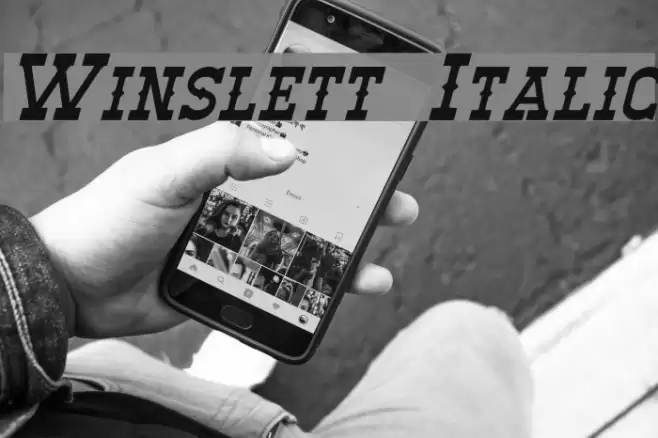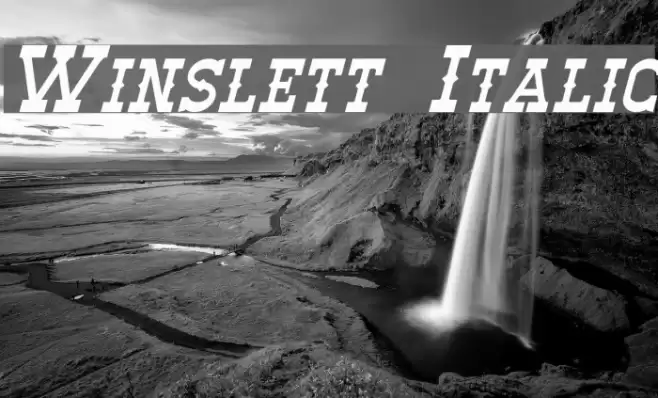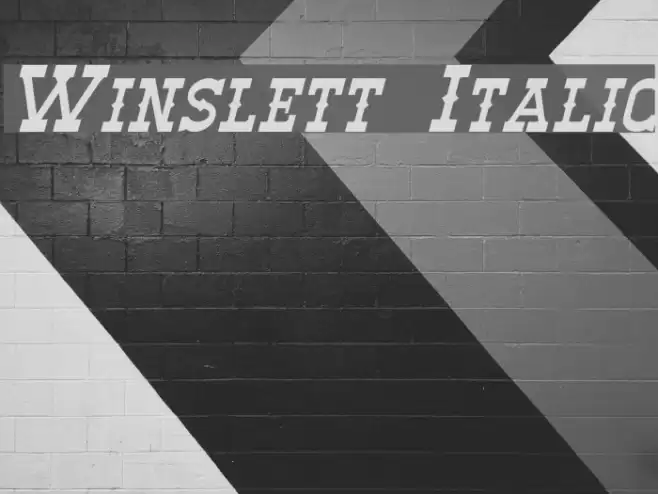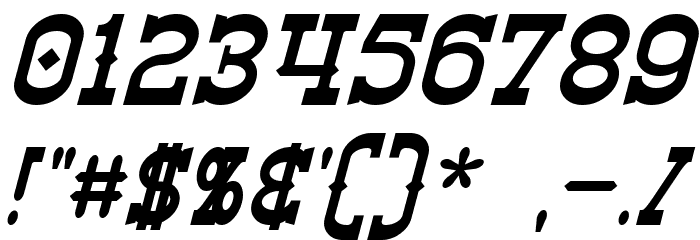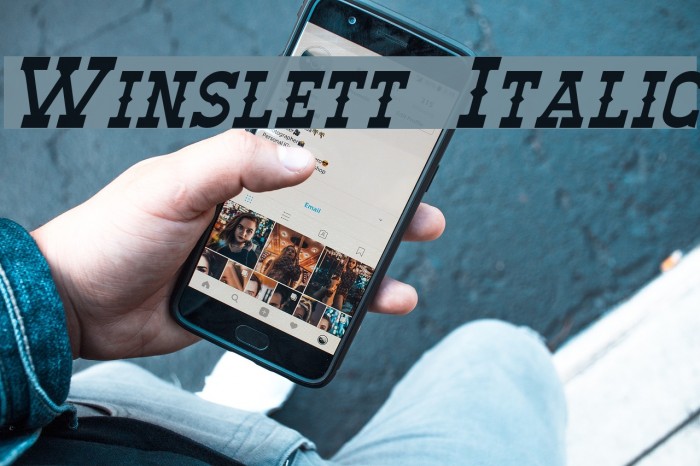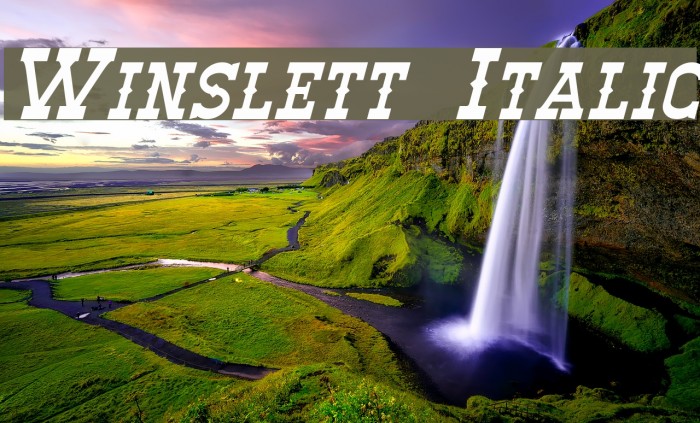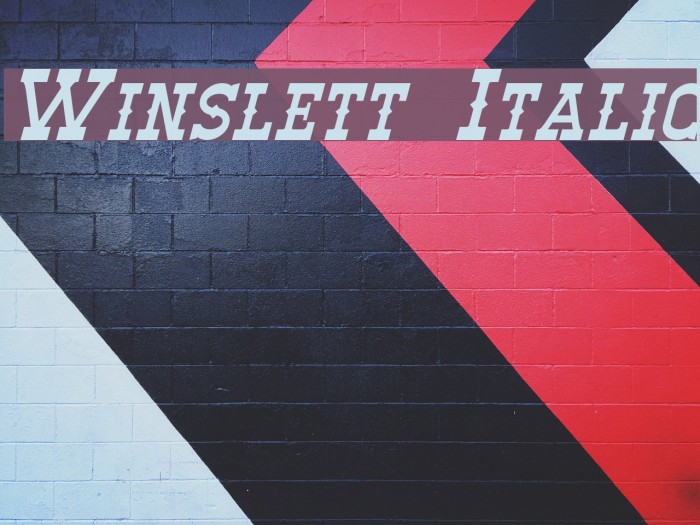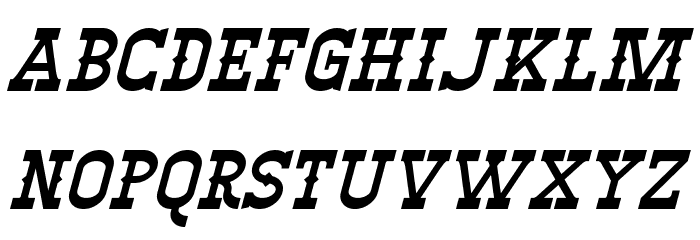
Winslett Italic Font
Winslett Italic Description
This font features a bold and dynamic italic style, characterized by its strong slant and robust letterforms. The uppercase and lowercase letters maintain a consistent angle, giving the typeface a sense of motion and energy. The strokes are thick and uniform, providing a solid and impactful appearance. The numerals and special characters follow the same design principles, ensuring a cohesive look across all glyphs. The font's boldness and italic nature make it suitable for attention-grabbing headlines and titles. Its design is reminiscent of vintage signage, offering a classic yet powerful aesthetic.
A bold, italic font with a strong slant and uniform strokes, ideal for impactful headlines from Uncategorized fonts.
- Proposed Projects: This font is perfect for projects that require a vintage or retro feel, such as posters, branding, and advertising materials. It can also be used effectively in logo design and packaging to convey a sense of strength and dynamism.
- Overall Style: Vintage